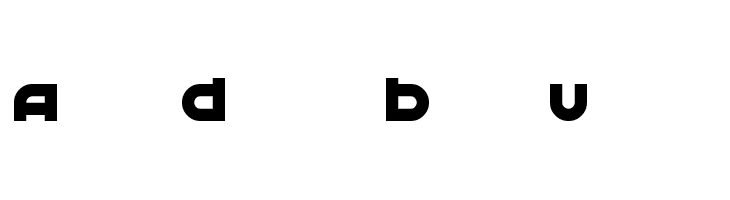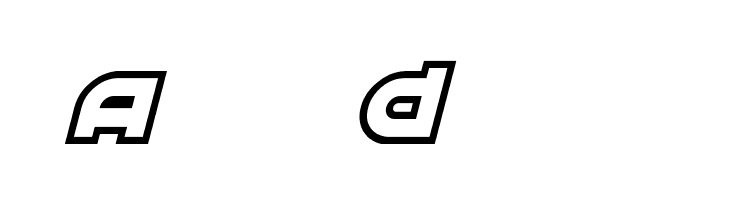
A sleek, modern italic font with clean lines and consistent stroke width.
A modern, light italic font with elegant and fluid design.
A sharp, angular font with a tribal and modern aesthetic.
A playful, casual handwritten font with bold strokes and medium contrast.
A playful, bold, hand-drawn font with a cartoonish style.
A playful, hand-drawn font with a scribbled texture and bold, sketch-like letters.
A bold, cursive script font with a dynamic and elegant handwritten style.
A playful, balloon-like font with smooth, rounded characters.
A bold, hand-drawn font with a playful, comic-like style.
A bold, italicized handwritten font with a playful and dynamic style.
A bold, italicized, and playful handwritten font.
A bold, playful font with a comic-style, hand-drawn appearance.
A bold, cartoonish font with a playful, hand-drawn style.
A playful, handwritten font with dynamic, uneven strokes.
A bold, playful font with textured, rounded characters.
A bold, playful font with a unique dotted texture inside each character.
A playful, handwritten font with tall, narrow letterforms and a casual style.
A whimsical and artistic font with elongated strokes and a playful style.
A bold, geometric stencil font with an industrial and modern aesthetic.
A dynamic, textured handwritten font with expressive strokes.
A textured, handwritten script font with a dynamic and expressive style.
A modern, rounded sans-serif font with smooth edges and balanced spacing.
A bold, italicized font with smooth, rounded edges and a modern look.
A modern, italicized font with smooth, rounded edges and consistent stroke thickness.
A sleek, modern, light italic font with smooth, rounded edges.
A bold, angular font with a hand-crafted, artistic style.
An elegant script font with flowing curves and decorative flourishes.
A bold, rounded font with smooth curves and a modern, friendly appearance.
A bold, cracked texture font with a rugged, edgy appearance.
A bold, cracked font with a distressed, shattered appearance.